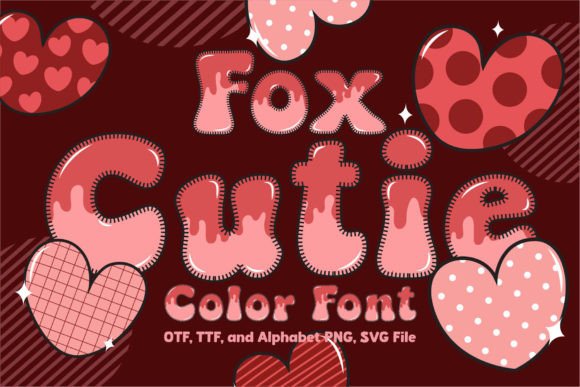
Introducing Fox Cutie Font: The Ultimate Cute and Fun Color Font for Your Creative Projects
Are you looking for a font that can add a touch of cuteness and warmth to your greeting cards, invitations, and social media posts? Look no further than Fox Cutie Font, a vibrant and playful color font that’s perfect for crafting beautiful and eye-catching designs. In this article, we’ll explore the features and benefits of Fox Cutie Font, and show you how to use it to take your creative projects to the next level.
What is Fox Cutie Font?
Fox Cutie Font is a cute and fun color font that’s designed to help you create stunning greeting cards, invitations, and social media posts. This OpenType full-color (SVG) font is perfect for crafters, designers, and anyone who wants to add a personal touch to their digital and print projects.
Key Features of Fox Cutie Font
- Cute and playful design: Fox Cutie Font features a unique and adorable design that’s sure to capture the hearts of your audience.
- Full-color SVG font: This font is designed to take advantage of the latest font technology, allowing you to create stunning full-color designs with ease.
Uses for Fox Cutie Font
Fox Cutie Font is perfect for a range of creative projects, including:
- Greeting cards: Create beautiful and eye-catching greeting cards for special occasions.
- Invitations: Use Fox Cutie Font to create stunning invitations for parties, weddings, and other events.
- Social media posts: Add a touch of cuteness to your social media posts with Fox Cutie Font.
- Stationary art: Create beautiful and unique stationary art with Fox Cutie Font.
- Unique and adorable designs: Fox Cutie Font allows you to create unique and adorable designs that will capture the hearts of your audience.
| Author | Fox7 |
Fox Cutie Font is a cute and fun color font that’s perfect for crafters, designers, and anyone who wants to add a personal touch to their digital and print projects. With its unique and adorable design, seamless integration with popular design software, and range of uses, Fox Cutie Font is a must-have for anyone looking to create stunning and eye-catching designs. So why wait? Get Fox Cutie Font today and start creating beautiful and unique designs with ease!